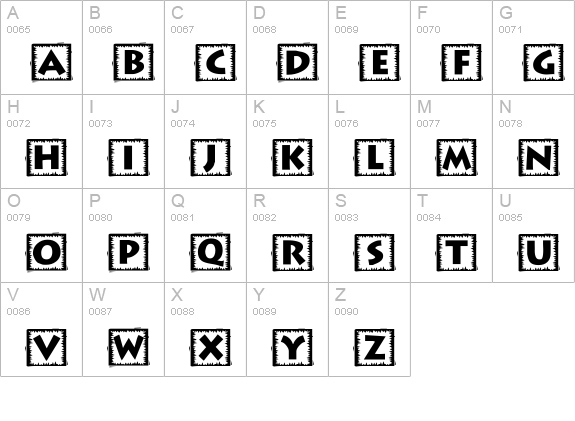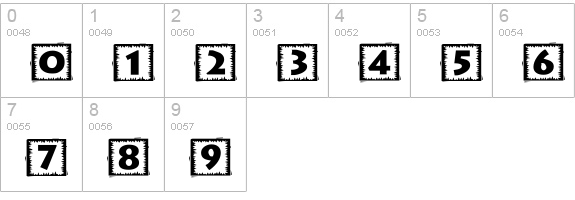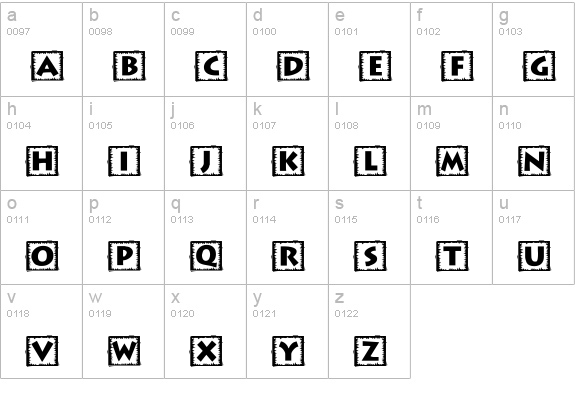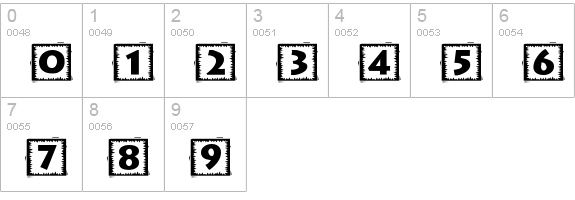
Taco Box Font Details
Introducing Taco Box, a captivating and versatile font that will add a delightful touch to your designs. With its unique blend of playful curves and contemporary lines, Taco Box offers a fresh and modern aesthetic that is bound to catch the eye. This font is not only visually appealing but also incredibly versatile, making it suitable for a wide range of projects. Whether you're designing a logo, creating eye-catching headlines, or crafting engaging social media posts, Taco Box will effortlessly bring your ideas to life. One of the best things about Taco Box is that it is free. That's right, you read that correctly! This amazing font is freely available to download at FontsMarket.com, ensuring that anyone can access it and enhance their creative endeavors without breaking the bank. So why wait? Give your designs a delightful twist with Taco Box. Download it now for free at FontsMarket.com and let your imagination run wild. Whether you're a professional designer or an enthusiastic hobbyist, Taco Box is the perfect addition to your font collection.